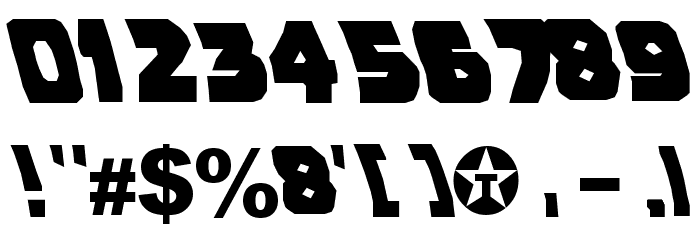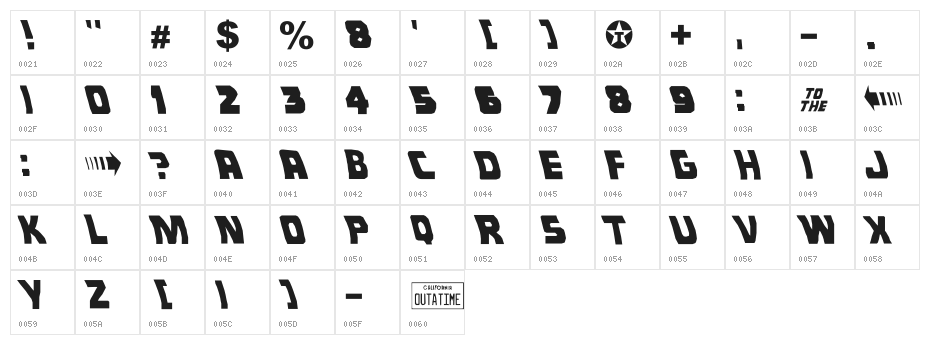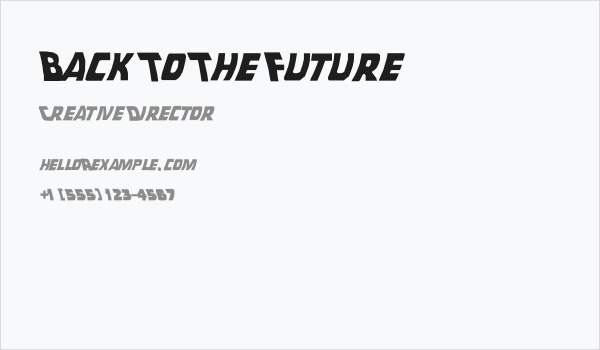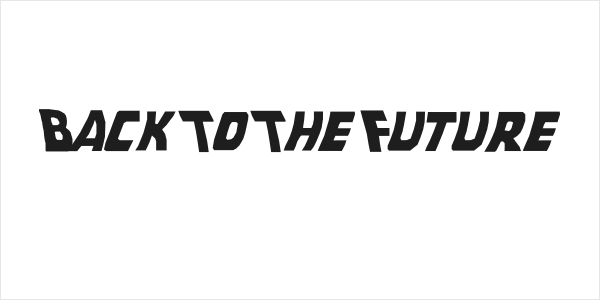
Back To The Future Font
Back To The Future Description
This font features a bold, futuristic style with a strong emphasis on angular and geometric shapes. The characters are slanted, giving a sense of motion and speed, reminiscent of retro-futuristic designs. The uppercase letters are particularly striking, with sharp edges and a dynamic presence. The numbers and special characters maintain this bold aesthetic, ensuring consistency across all glyphs. This font is ideal for projects that require a sense of energy and forward-thinking design, making it perfect for sci-fi themes or technology-related branding.
A bold, angular font with a futuristic, retro-inspired design from Decorative fonts.
- Proposed Projects: Ideal for sci-fi movie posters, tech branding, video game titles, and futuristic event flyers.
- Overall Style: Futuristic, Retro